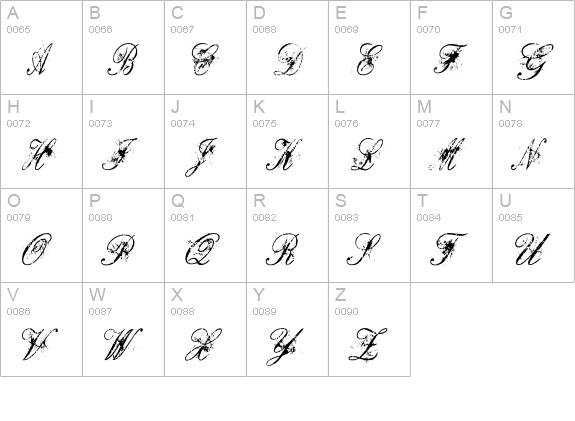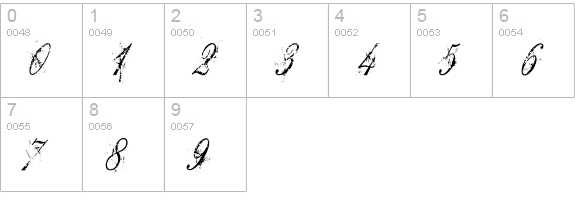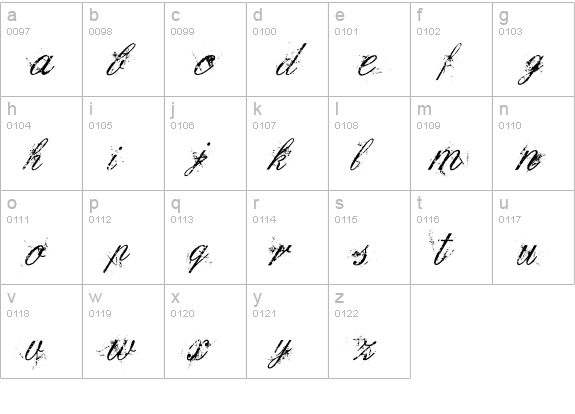
Dirty English Font Details
Introducing Dirty English font - a bold and edgy typeface that exudes a rebellious and urban vibe. With its rugged and distressed appearance, Dirty English is perfect for designs that aim to make a bold statement. This versatile font is ideal for various projects such as posters, album covers, apparel designs, and more. What's even better is that Dirty English font is available for free download at FontsMarket.com. So go ahead and unleash your creativity with this unique and eye-catching typeface. Let Dirty English add a touch of raw energy to your designs and make them stand out from the crowd.